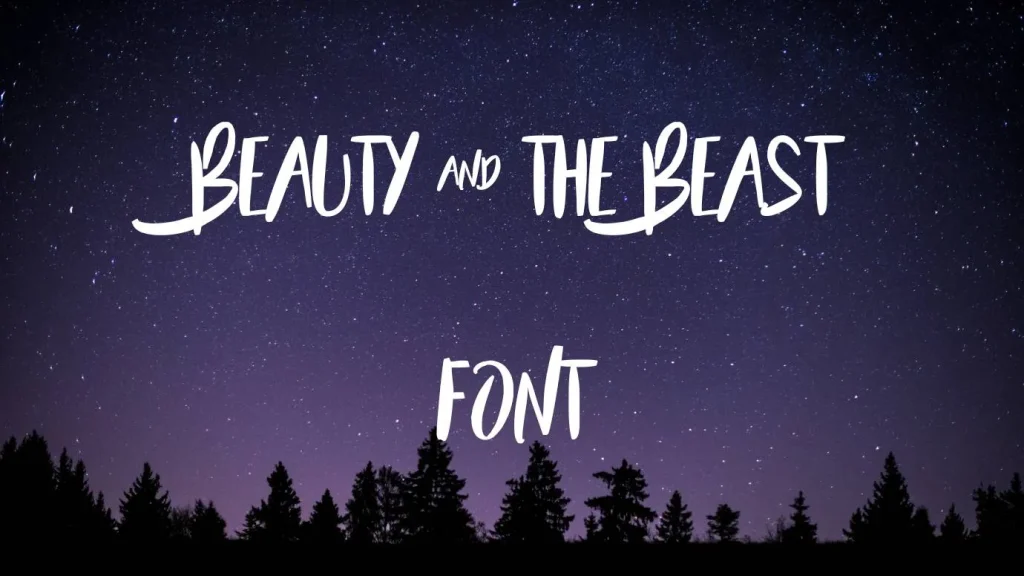
Beauty and The Beast Font is designed by Francis Studio it is a cartoon movie. The style belongs to the brush category. The text style has upper- and lower-case characters.
It is a popular font with a fantastic style and a distinctive look. This font was liked by many talented designers they used the style in a variety of wonderful projects.
This elegant TrueType design can be created online by using its generating tool. You may quickly create a unique typeface style in a modern way. Multiple display designs can make use of its innovative classic style appearance.
You can receive a lot of compliments from both clients and other designers by utilizing this elegant style.